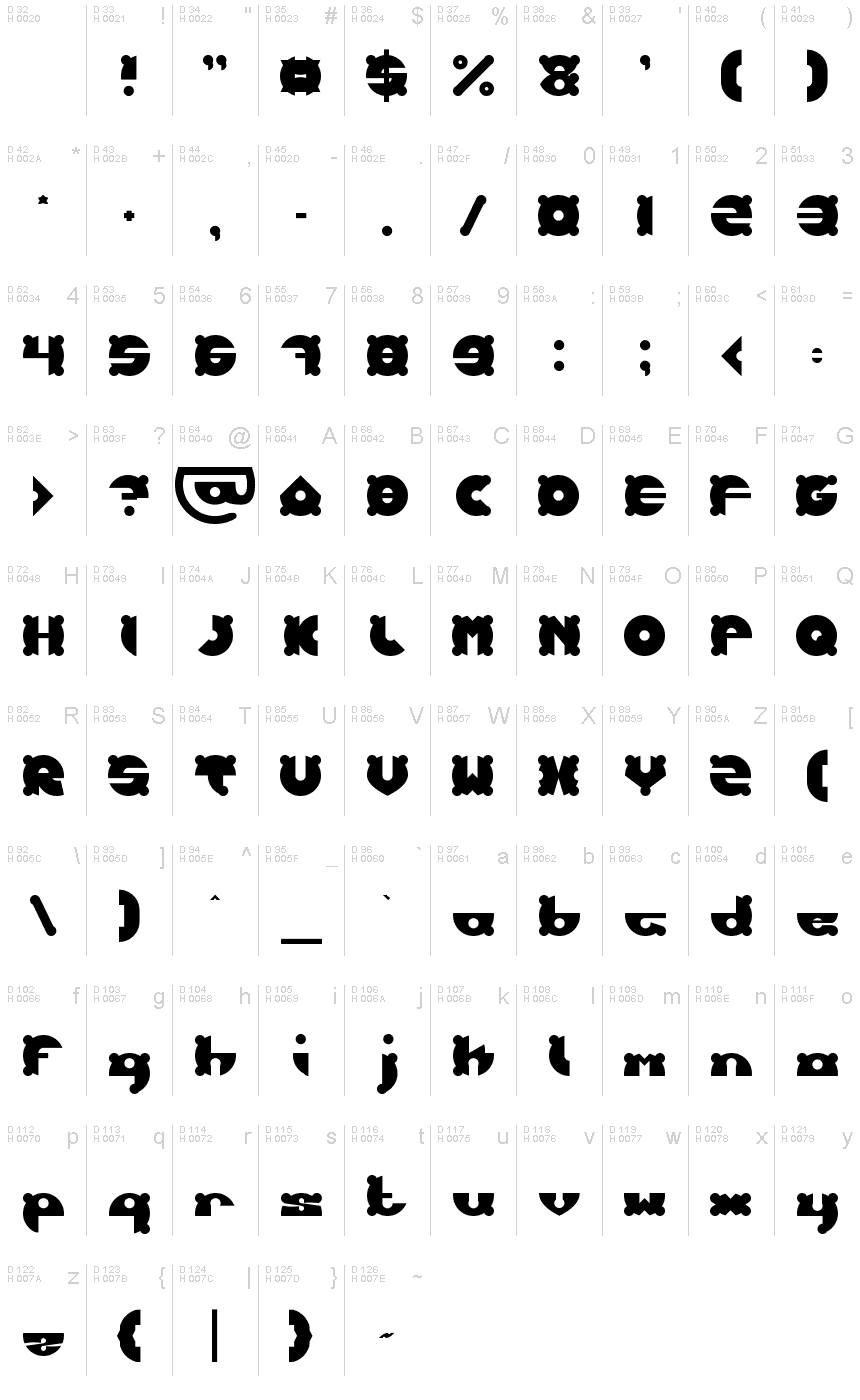
Grizzly & Bear
Grizzly & Bear, designed by Weknow Font Foundry, is a captivating display font that exudes an extra-bold decorative style. With its expanded width, this font commands attention and adds a touch of uniqueness to any project. Ideal for eye-catching headlines, logos, and branding materials, Grizzly & Bear brings a bold presence to advertising campaigns. Its distinct decorative elements make it perfect for creative projects like album covers or event posters. Whether you're designing for fashion, music, or art industries, this font will leave a lasting impression on your audience.